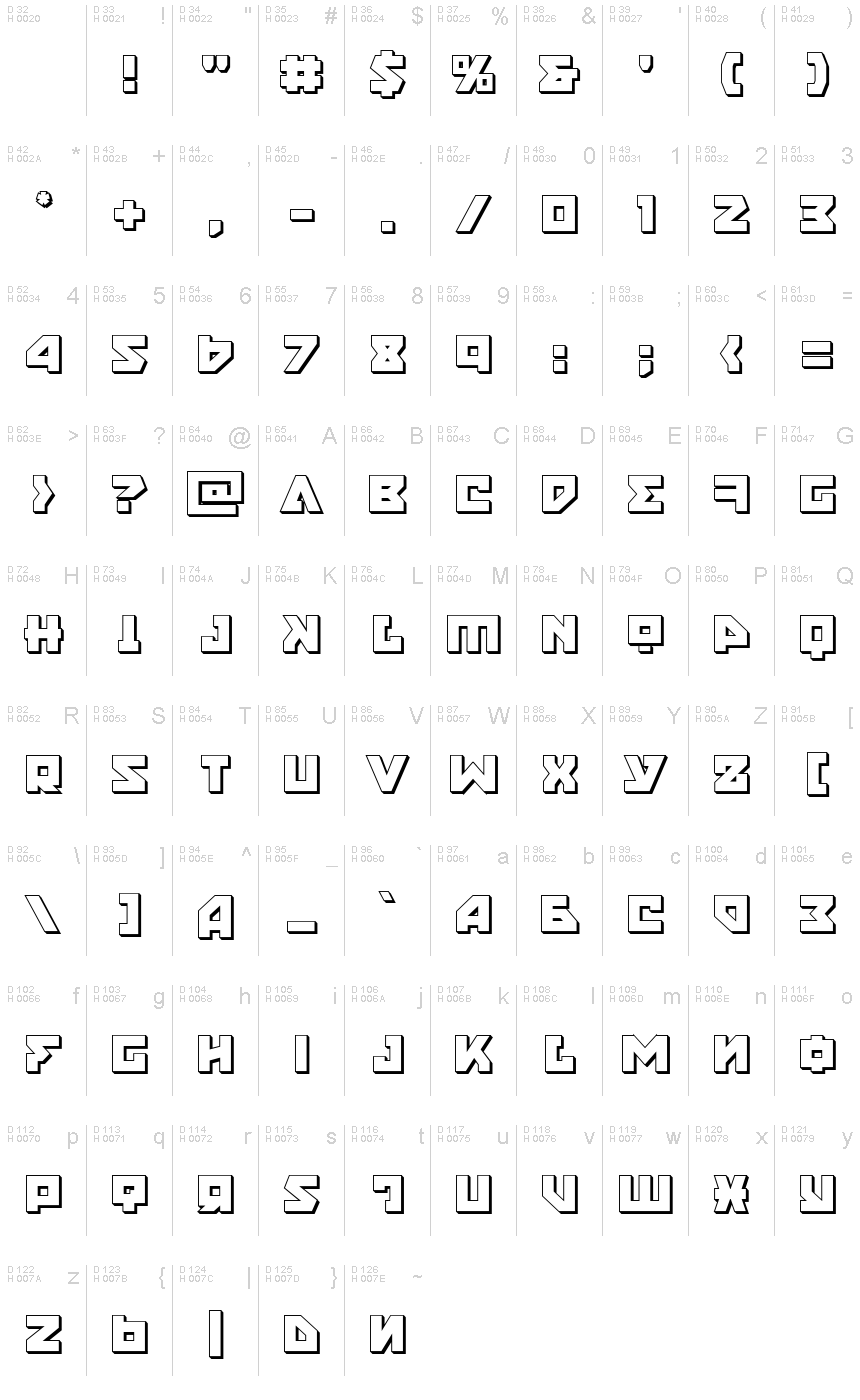
Nyet 3D is a bold, expressive display font that exudes a bold, faux-Russian aesthetic. Designed by Daniel Zadorozny, this expanded font features striking three-dimensional letterforms that command attention.
The font's unique visual style, with its thick, angular strokes and dramatic shadows, lends an air of rugged strength and industrial edge. Nyet 3D's distinctive character would be well-suited for a range of design applications, from posters and branding to packaging and editorial layouts, where a bold, eye-catching typographic treatment is desired.
Its distinctive personality makes it a versatile choice for designers seeking to create impactful, memorable visuals.
Nyet 3D